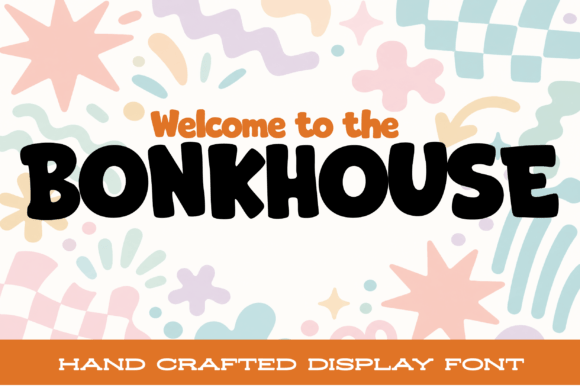
The Ultimate Display Font: Bonkhouse
As designers, we’ve all been there – stuck on a project, searching for the perfect font to bring our vision to life. I recall working on a children’s book design, wanting a font that was playful, energetic, and fun. That’s when I stumbled upon Bonkhouse, a chunky, playful display font that instantly captured my attention. With its bold personality, heavy rounded letterforms, and hand-drawn charm, Bonkhouse was the perfect fit for my project.
First Impressions: A Bold and Playful Font
Bonkhouse is a font that packs a punch. Its heavy rounded letterforms, slightly wild proportions, and hand-drawn charm make it a standout in any design. It’s loud, friendly, and a little goofy in the best way. This font is perfect for posters, stickers, kids’ designs, logos, packaging, apparel, social graphics, and anything that needs a big dose of character.
Honest Review: The Good and the Quirks
• ✨ **Bold Personality**: Bonkhouse brings a fun, high-energy feel to any design.
• ✅ **Versatility**: Suitable for a wide range of design projects, from posters to social graphics.
• 🔥 **Retro-Fresh Style**: Combines a retro feel with a fresh, modern twist.
• 💬 **Expressive Letterforms**: Bouncy shapes and quirky curves make every word feel expressive and memorable.
While Bonkhouse is an amazing font, there are a few things to keep in mind:
• ⚠️ **Limited Legibility at Small Sizes**: Due to its chunky and playful nature, Bonkhouse may not be suitable for body text or small font sizes.
• 🤔 **Some Letters May Overlap**: Depending on the word or phrase, some letters might overlap or collide, requiring manual adjustments.
The Story Behind Bonkhouse
Bonkhouse was designed with the intention of creating a font that embodies fun and playfulness. The designer aimed to craft a font that would bring a smile to the user’s face and inspire creativity. With its chunky letterforms and hand-drawn charm, Bonkhouse is a testament to the power of typography in design.
Q: What type of projects is Bonkhouse best suited for?
A: Bonkhouse is perfect for posters, stickers, kids’ designs, logos, packaging, apparel, social graphics, and any project that needs a bold, playful font.
Q: Can I use Bonkhouse for body text?
A: While Bonkhouse is a beautiful font, it’s not ideal for body text due to its chunky and playful nature. It’s best used for headlines or display text.
Q: Does Bonkhouse support OpenType features?
A: Yes, Bonkhouse supports OpenType features, including glyphs and stylistic alternates, which can be accessed in compatible design applications.
Q: Is Bonkhouse suitable for digital and print designs?
A: Absolutely! Bonkhouse works well in both digital and print designs, making it a versatile font for various applications.